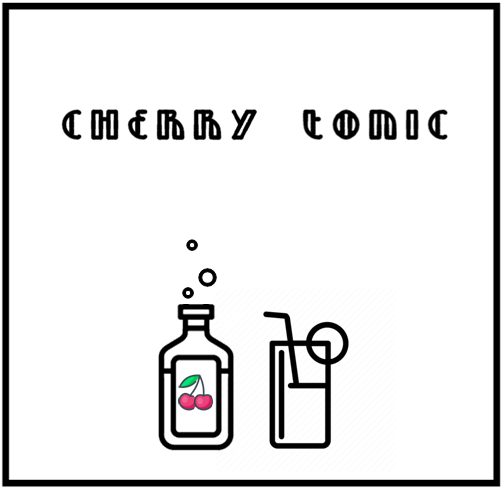
this looks very nice. keep up the good work ^_^
Very pretty font. I know it's quite complicated, but it would look better with a more rounded O... Anyway, I love it.
elmoyenique, i tried a perfectly round "O," and while possible, it broke from the uniform width of the letters, hence the more narrow design~
An elegant addition to the series!
why is the q an o with a dot at the bottom